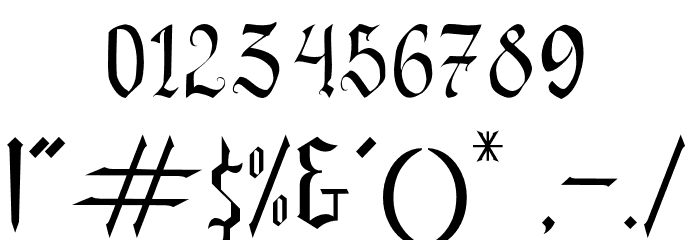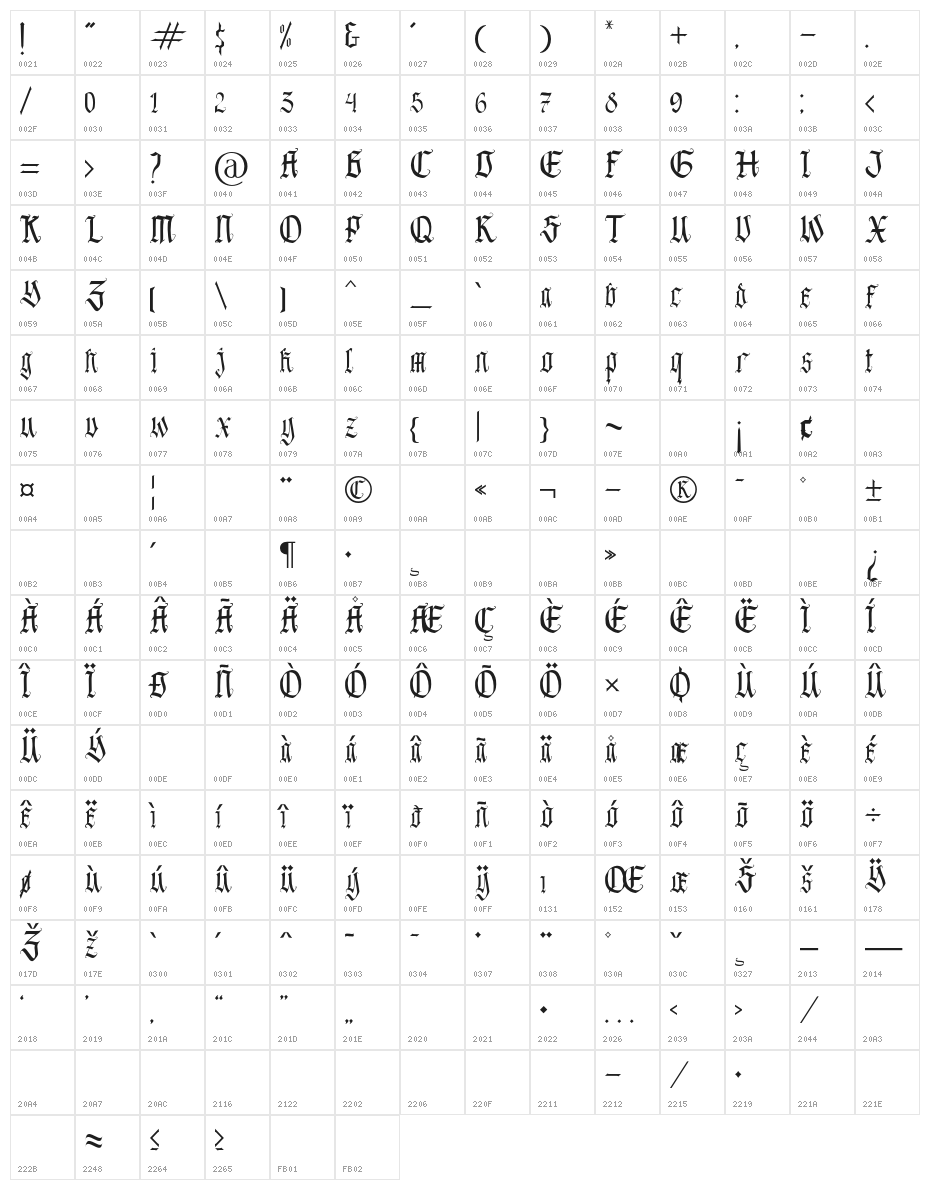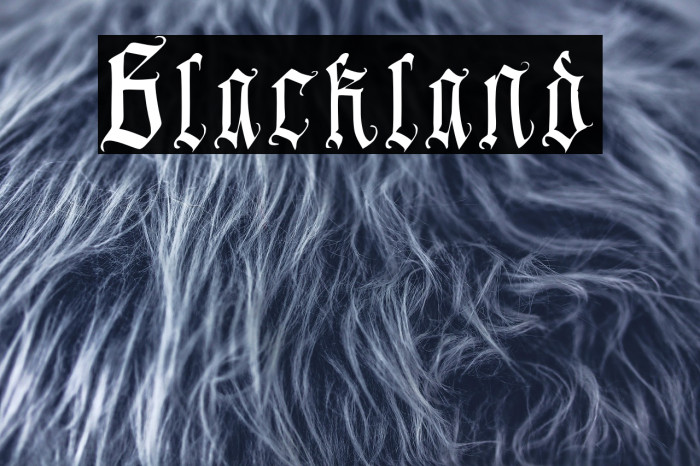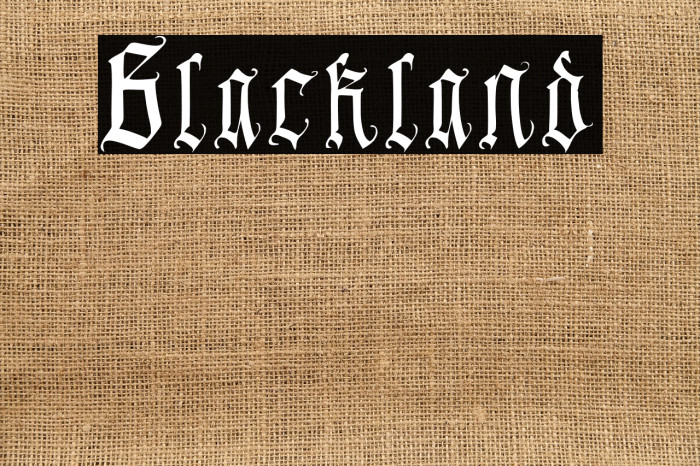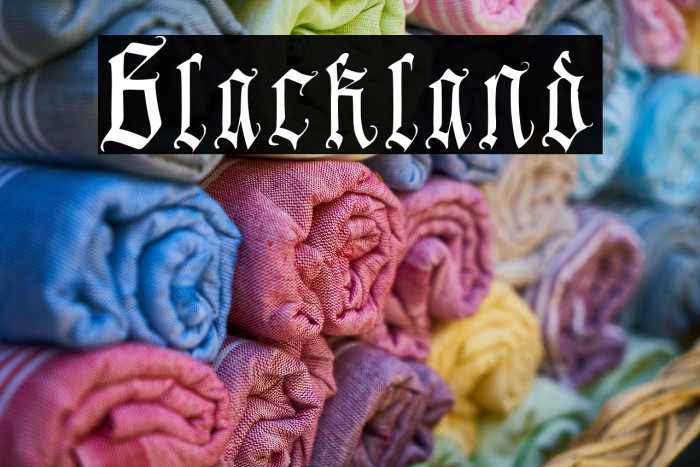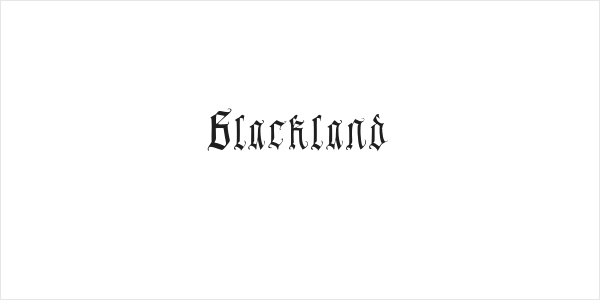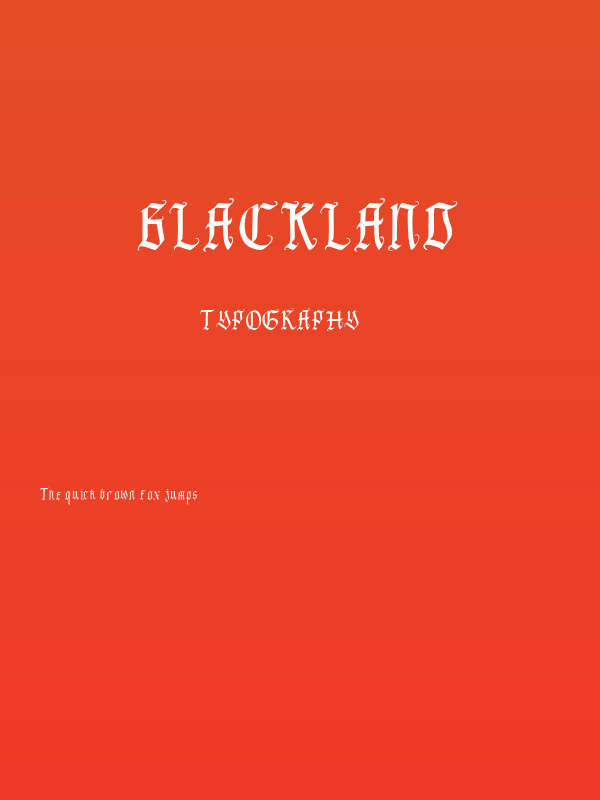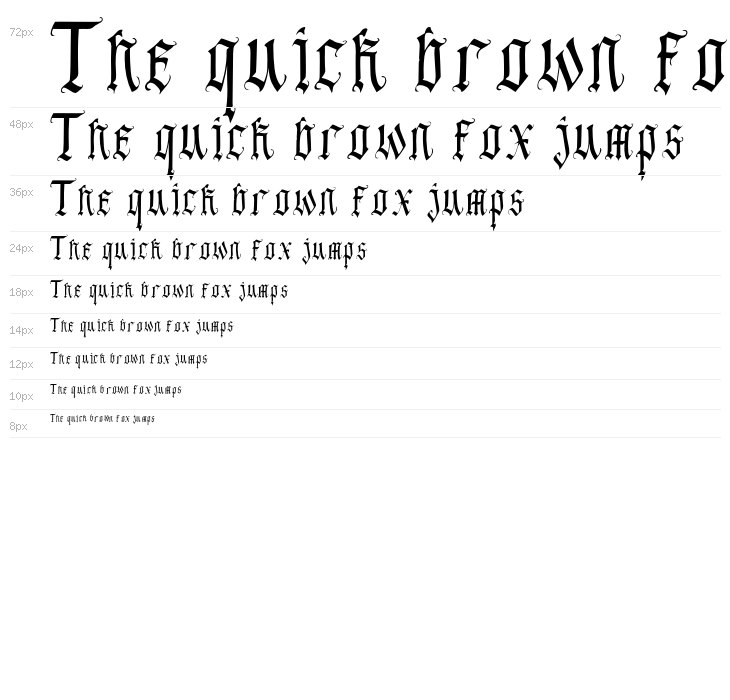
Blackland Font
Blackland Description
This font features a traditional Blackletter style, characterized by its ornate and intricate design. The letters are bold and angular, with sharp edges and dramatic strokes that convey a sense of historical elegance. The uppercase letters are particularly elaborate, with decorative flourishes that enhance their Gothic appearance. The lowercase letters maintain the same stylistic elements, ensuring consistency across the typeface. Numbers and special characters are also designed with the same attention to detail, making the font suitable for a variety of uses where a classic and sophisticated look is desired.
| Use Case | Headlines, Logos, Decorative text |
| Proposed Projects | Ideal for historical documents, certificates, wedding invitations, or any project requiring a classic Gothic aesthetic. |